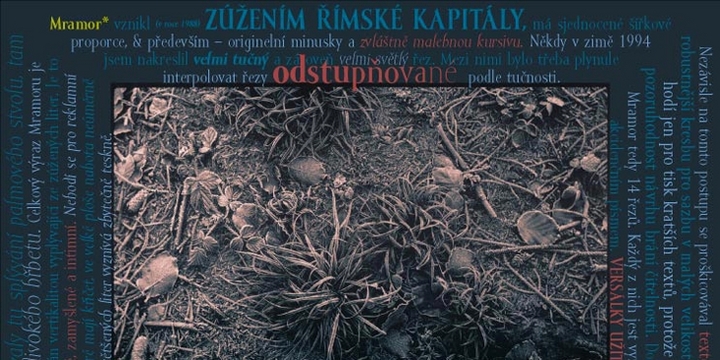
Arose (about 1988) through the narrowing of Roman capitals. It has uniform width proportions and, above all, original lower-case letters and picturesque italics. The text designs are suitable only for the printing of shorter texts, because the artistic singularity of the type face soon makes the reader tired. Altogether, Mramor has 14 designs. Each of them is appropriate for posters. The upper-case letters used in a simple inscription have absolute mastery of the entire area of the page, whereas the arabesques of the lower-case italics play an uncommon decorative accord in it. Were we to look deeper into the “nooks” of this alphabet, we would behold florally modelled serifs and stems with a very delicate entasis; the curves seem to follow on the one hand the merging of palm trunks, on the other a succession of rugged ridges. The overall expression of Mramor is vertical. It is a tranquil, contemplative and intimate type face. It is not suitable for inscriptions which are supposed to shout out of the surface. However, in large areas the nakedness of the letters results in a strange, wistful tone.